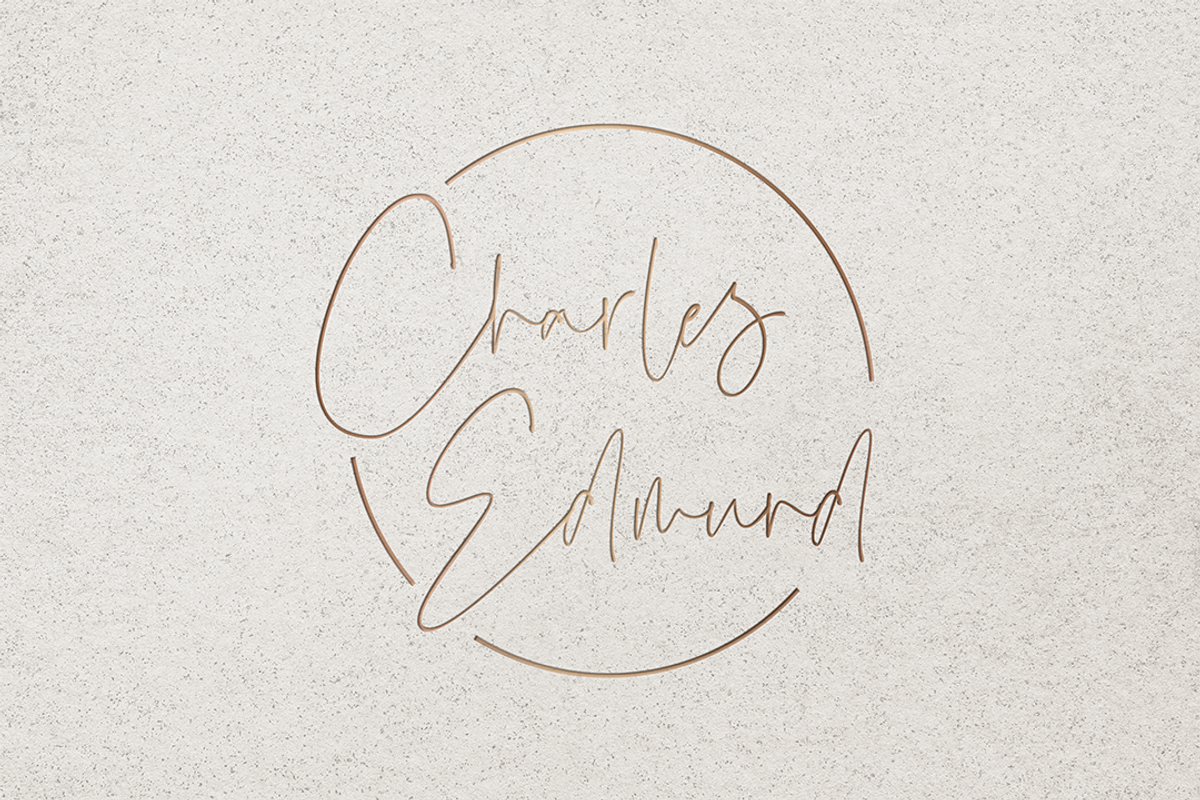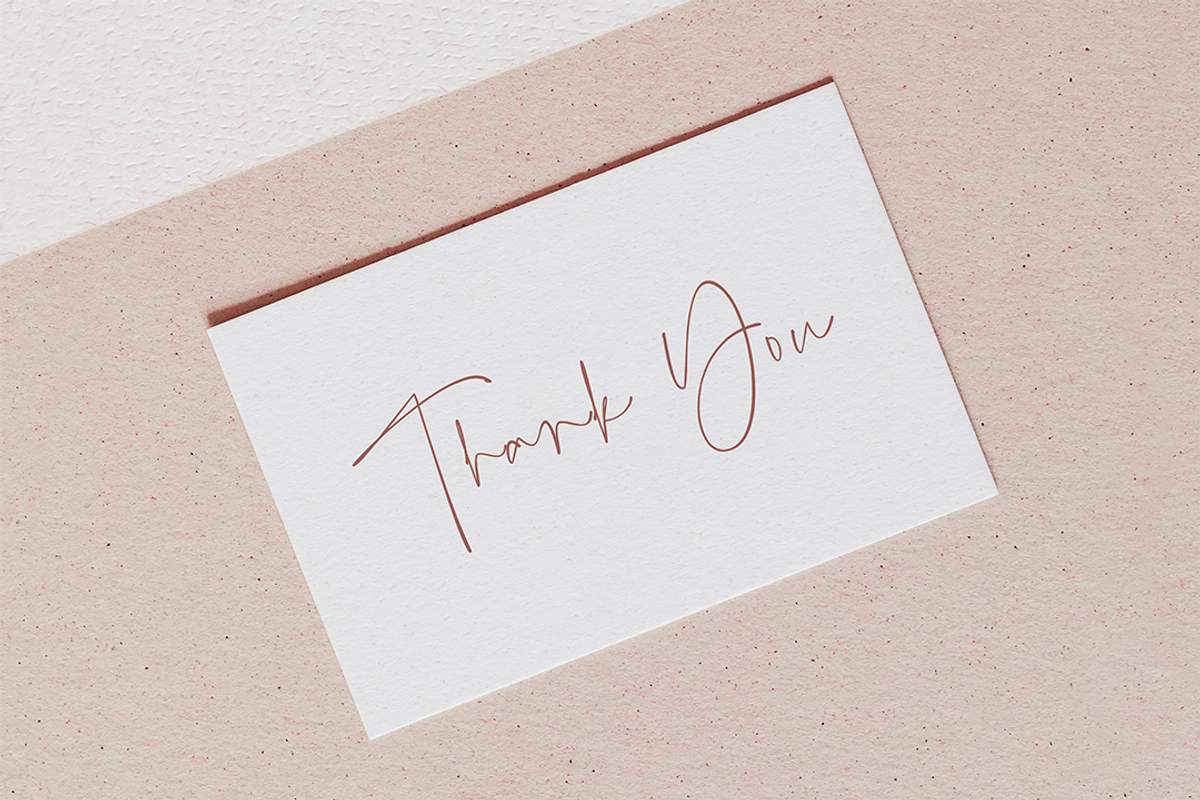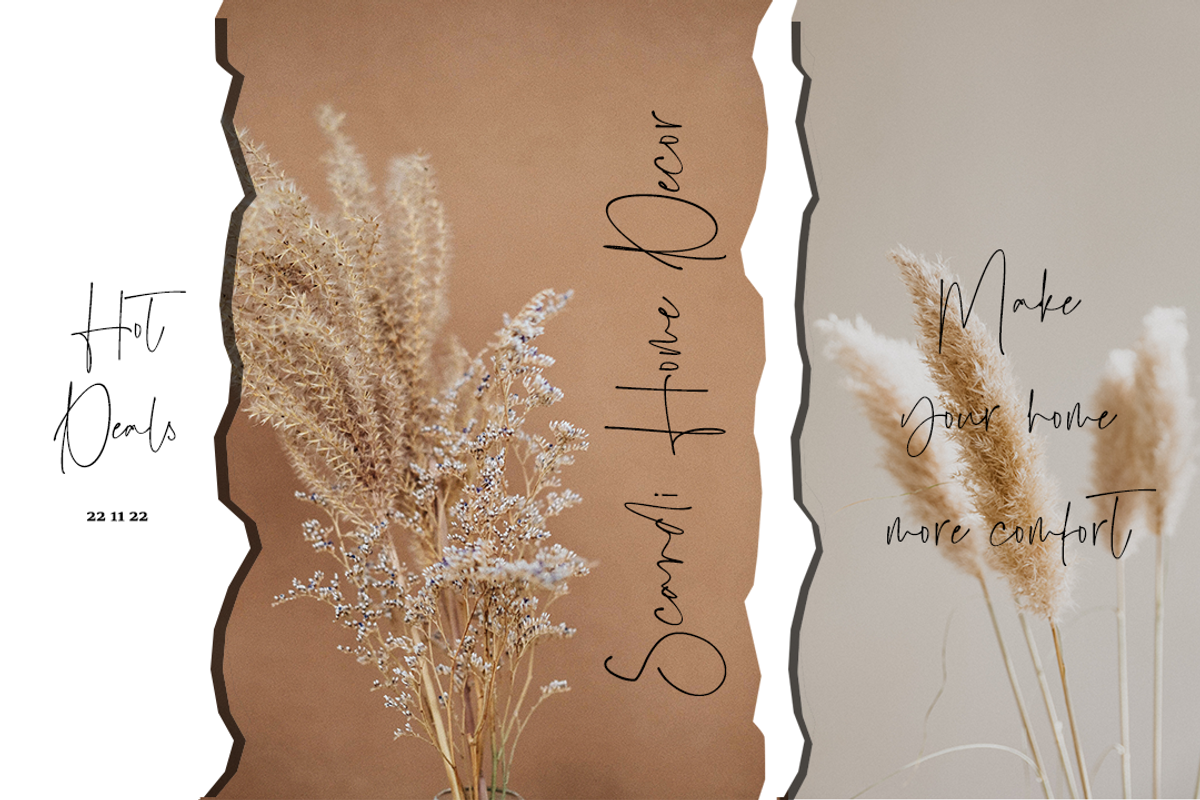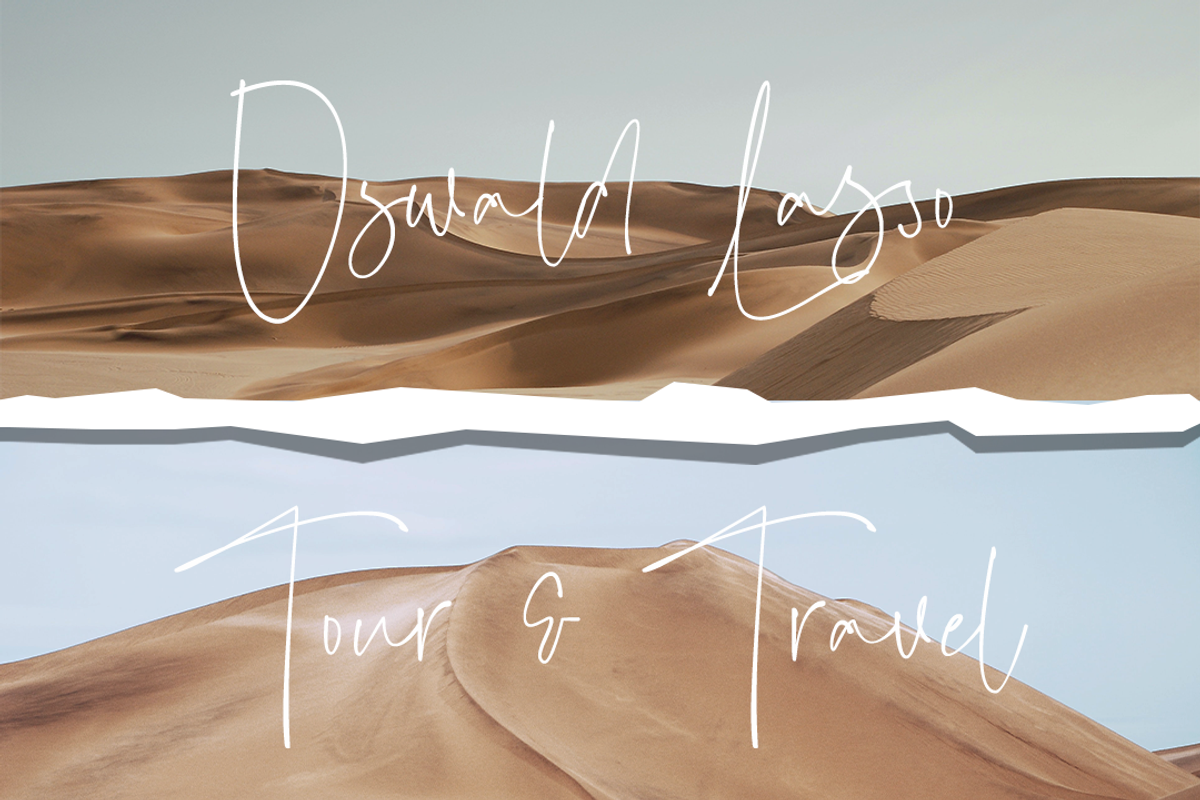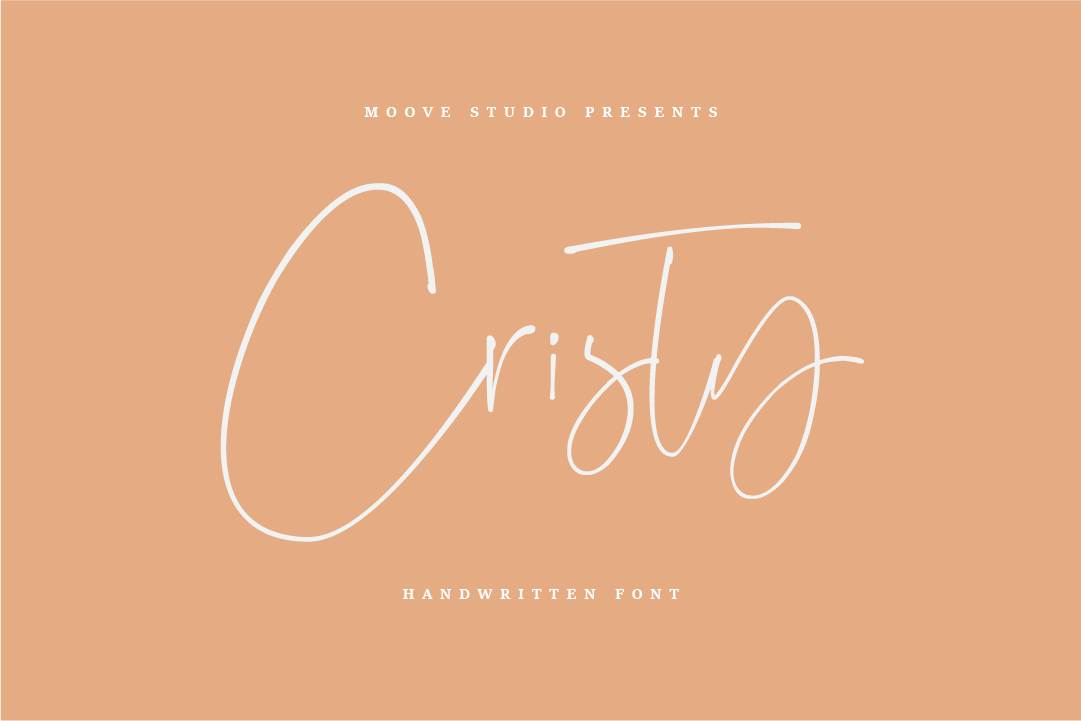
Cristy | Handwritten Font
Hi! Introducing my newest font calle Cristy.
Cristy is a thin and elegant handwritten font that fits into a variety of design projects, such as logos, business cards, invitations, and more. This gorgeous typeface will bring your design projects to life!